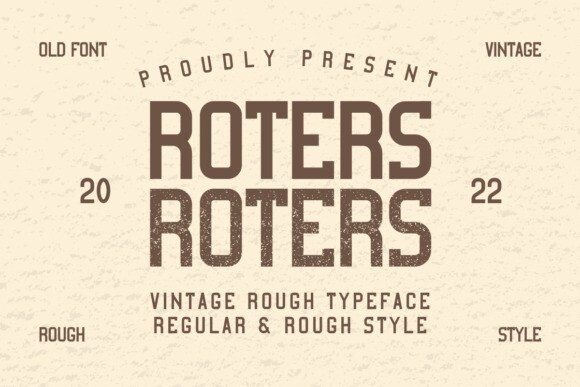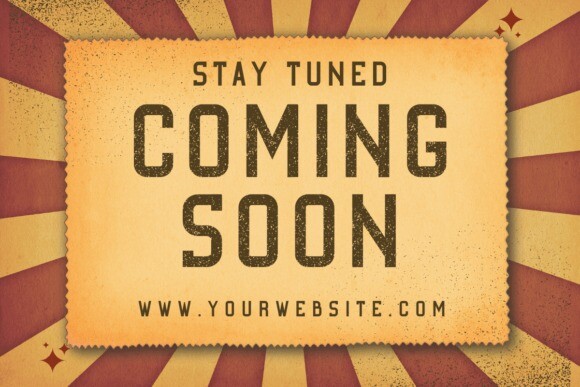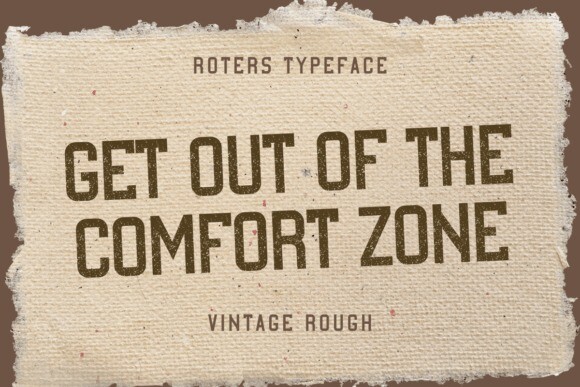
Roters Font
Roters is a Vintage style font that will make your designs look more perfect and attractive. This font has two styles namely Regular and Rough. It’s perfect for labels, quotes, posters, DIY projects, branding, packaging, greeting cards, websites, photographic overlays, signs, window art, scrapbooking, tags and more!